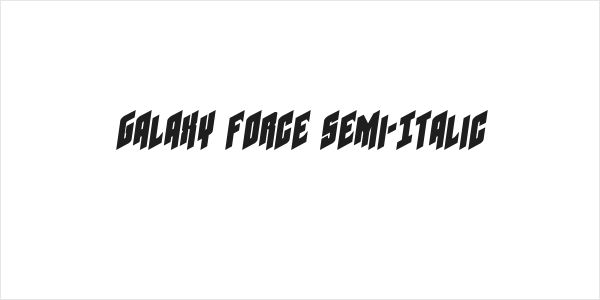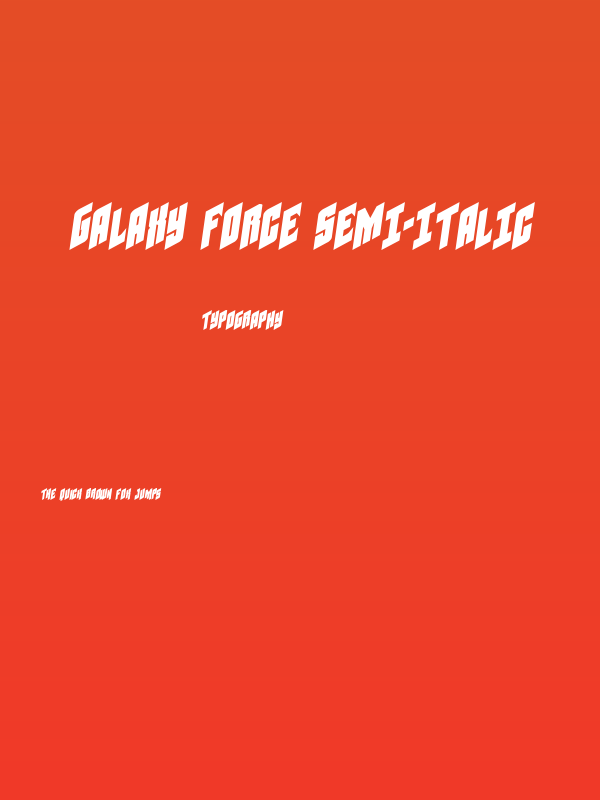
Galaxy Force Semi-Italic Font
Galaxy Force Semi-Italic Description
This font features a bold, dynamic style with a futuristic and aggressive appearance. The characters are sharply angled, giving a sense of motion and energy. The uppercase and lowercase letters maintain a consistent slant, enhancing the italicized effect. The numbers and special characters follow the same design principles, ensuring uniformity across the font. The thick strokes and sharp edges make it stand out, ideal for attention-grabbing designs.